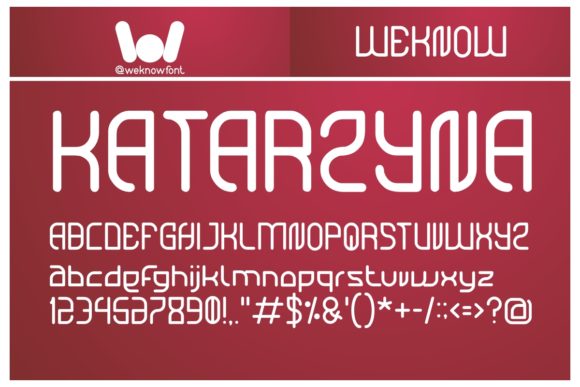
Journey into an enchanting realm of musical melodies and visual symphonies with Katarzyna—a display font that dances off the page with its rhythmic strokes and captivating energy. Each letter, a note cascading in perfect harmony, invites you to compose a visual masterpiece that resonates with the soul.
Katarzyna's allure lies in its unique techno style, a captivating blend of modern aesthetics and vintage charm. It's a symphony of bold lines, sharp angles, and fluid curves that seamlessly intertwine, mirroring the harmonious fusion of past and present in the world of music. This extraordinary font transcends mere ornamentation; it's an emotive conductor, guiding your audience through a kaleidoscope of emotions.
Unleash your inner musician and let Katarzyna transform your creative visions into captivating realities. Its vibrant personality lends itself effortlessly to a diverse symphony of design possibilities:
- Branding: Craft logos and visual identities that reverberate with an edgy, contemporary vibe, echoing the pulse of modern musical genres.
- Product Packaging: Enchant your packaging designs with Katarzyna's rhythmic notes, creating products that sing off the shelves, enticing customers with their harmonious appeal.
- Invitations: Extend invitations that set the tone for unforgettable events, with Katarzyna's elegant dance of letters beckoning guests to join the grand symphony of your celebration.
- Quotes and Sayings: Let Katarzyna's enchanting strokes serenade your words, transforming ordinary quotes into poignant melodies that resonate with depth and emotion.
- T-shirts and Apparel: Create clothing that speaks volumes, with Katarzyna's bold rhythms adorning t-shirts, sweatshirts, and accessories, making a powerful statement wherever you go.
- Labels and Packaging: Infuse your products with an air of sophistication and uniqueness with Katarzyna-designed labels that whisper stories of quality and craftsmanship.
- Posters and Wall Art: Transform your walls into vibrant canvases, with Katarzyna's captivating strokes painting mesmerizing posters and wall art that command attention and inspire awe.
- Logos and Branding: Design logos that strike a chord, with Katarzyna's vibrant personality resonating with the essence of your brand, leaving a lasting impression on your audience.
Katarzyna is more than just a font; it's an experience, a symphony of visual delight that captivates and enchants. Its techno-inspired aesthetics and versatility make it the perfect choice for designers, artists, and creatives seeking to unleash their inner musical maestro.
With Katarzyna, your designs will reverberate with the rhythm of passion, the harmony of creativity, and the soul-stirring melodies of artistic expression. Seize the opportunity to orchestrate a visual symphony that echoes in the hearts and minds of your audience.